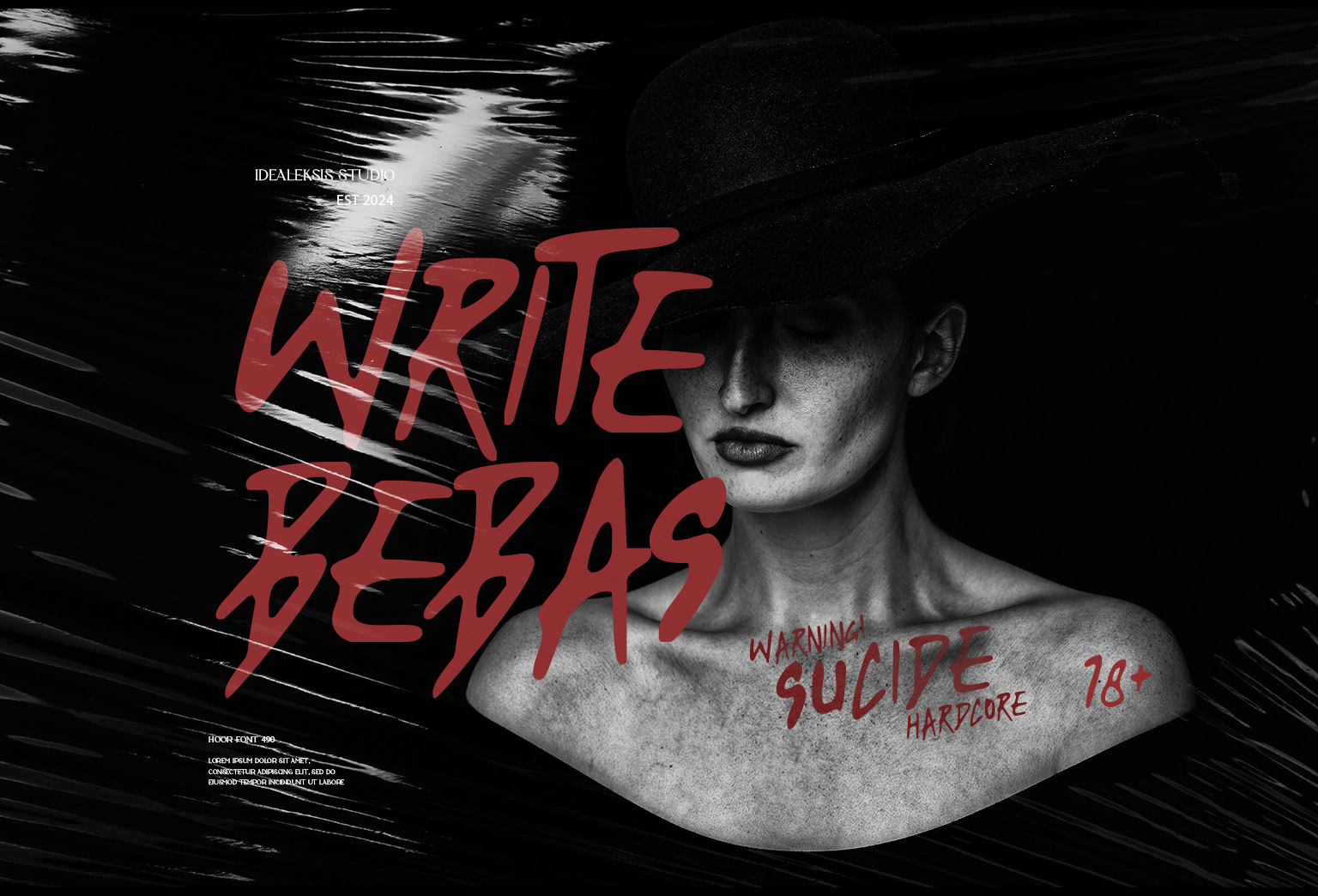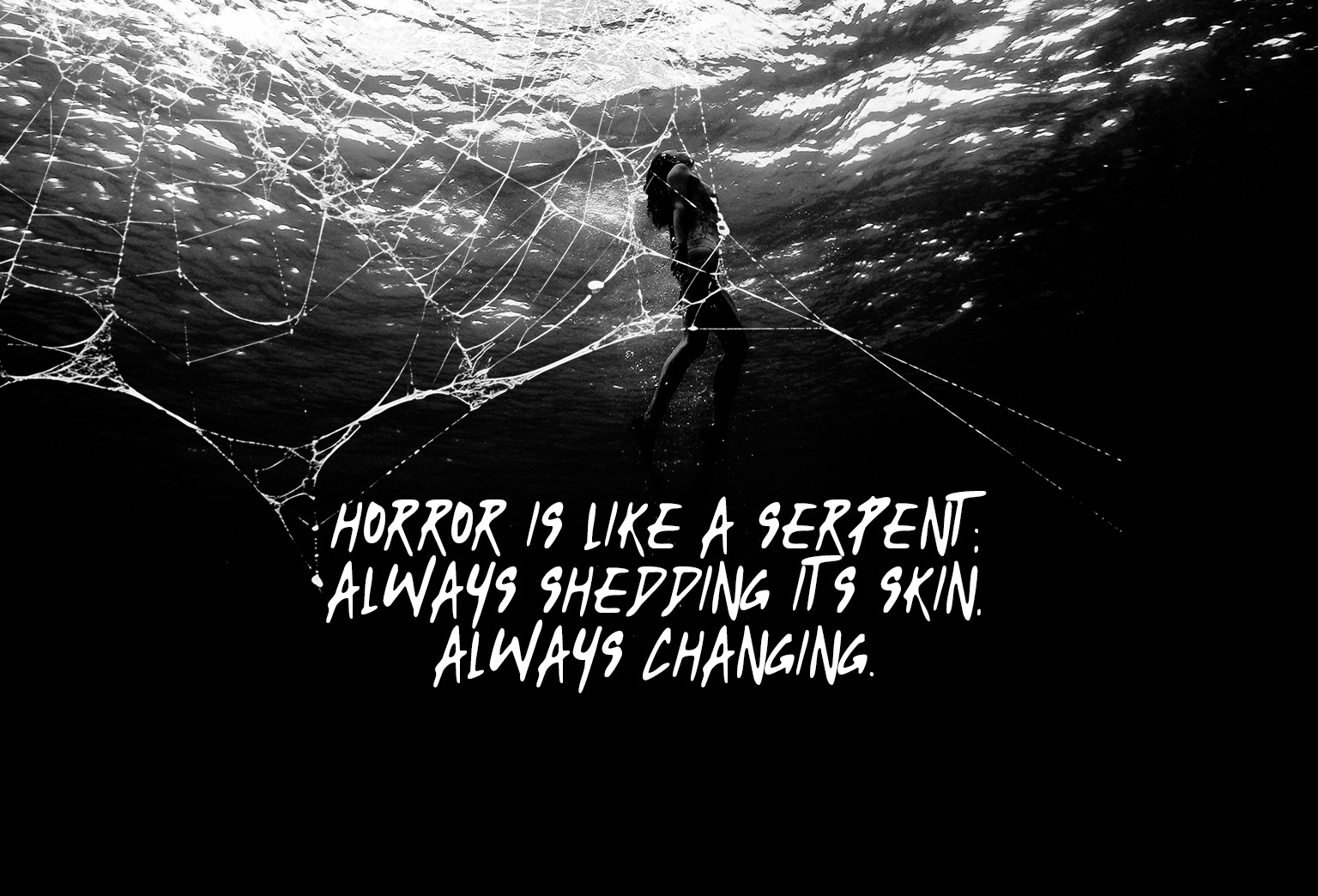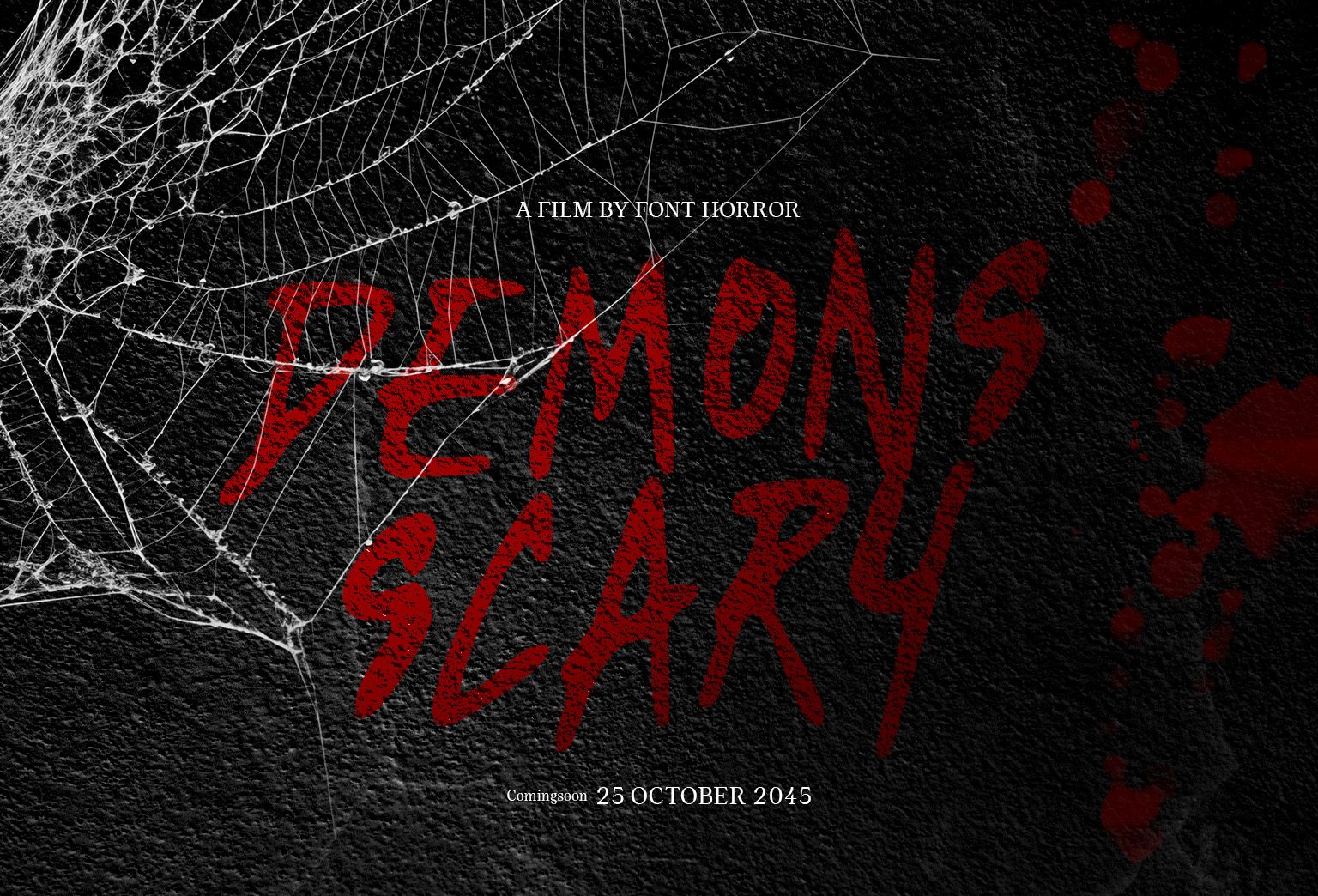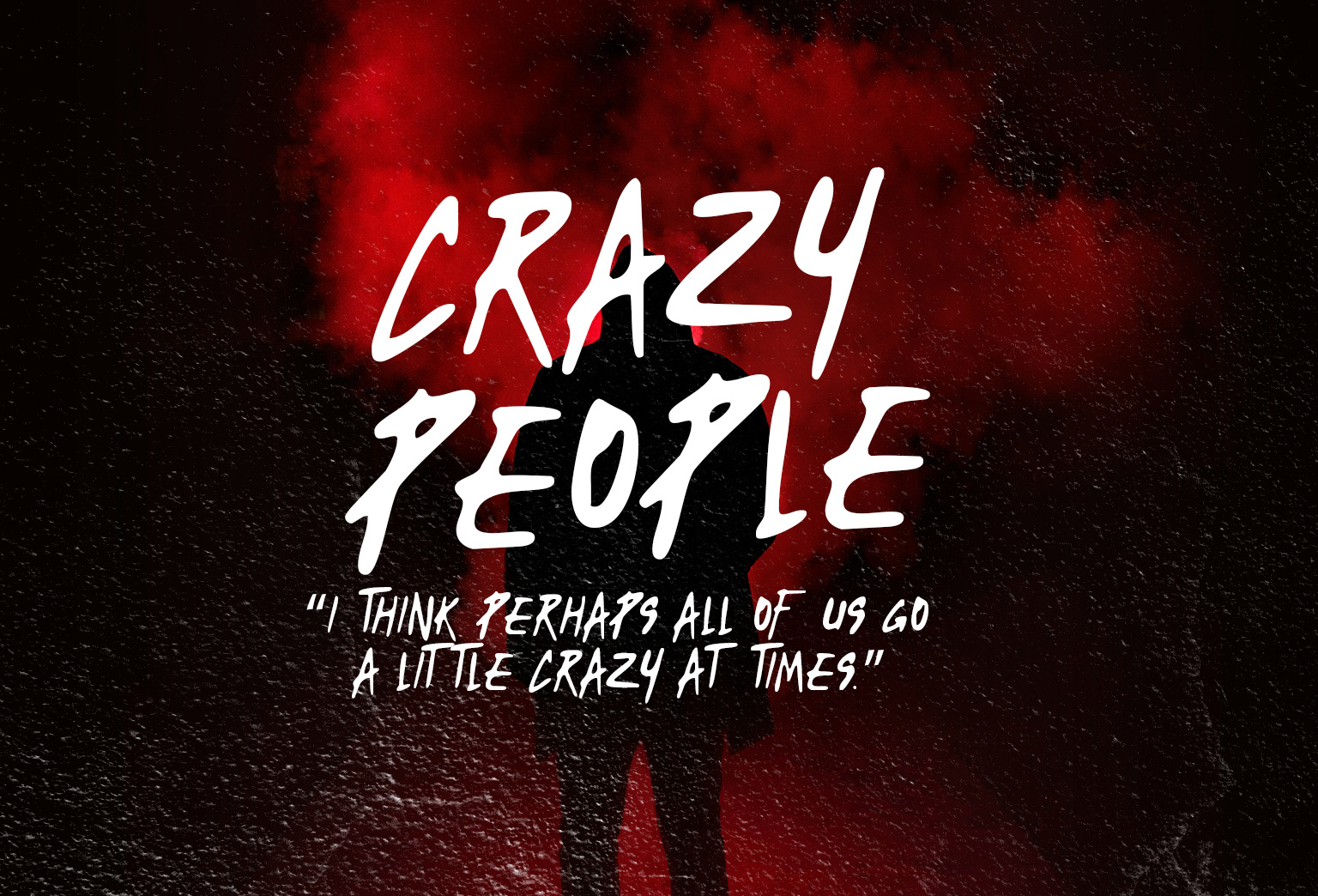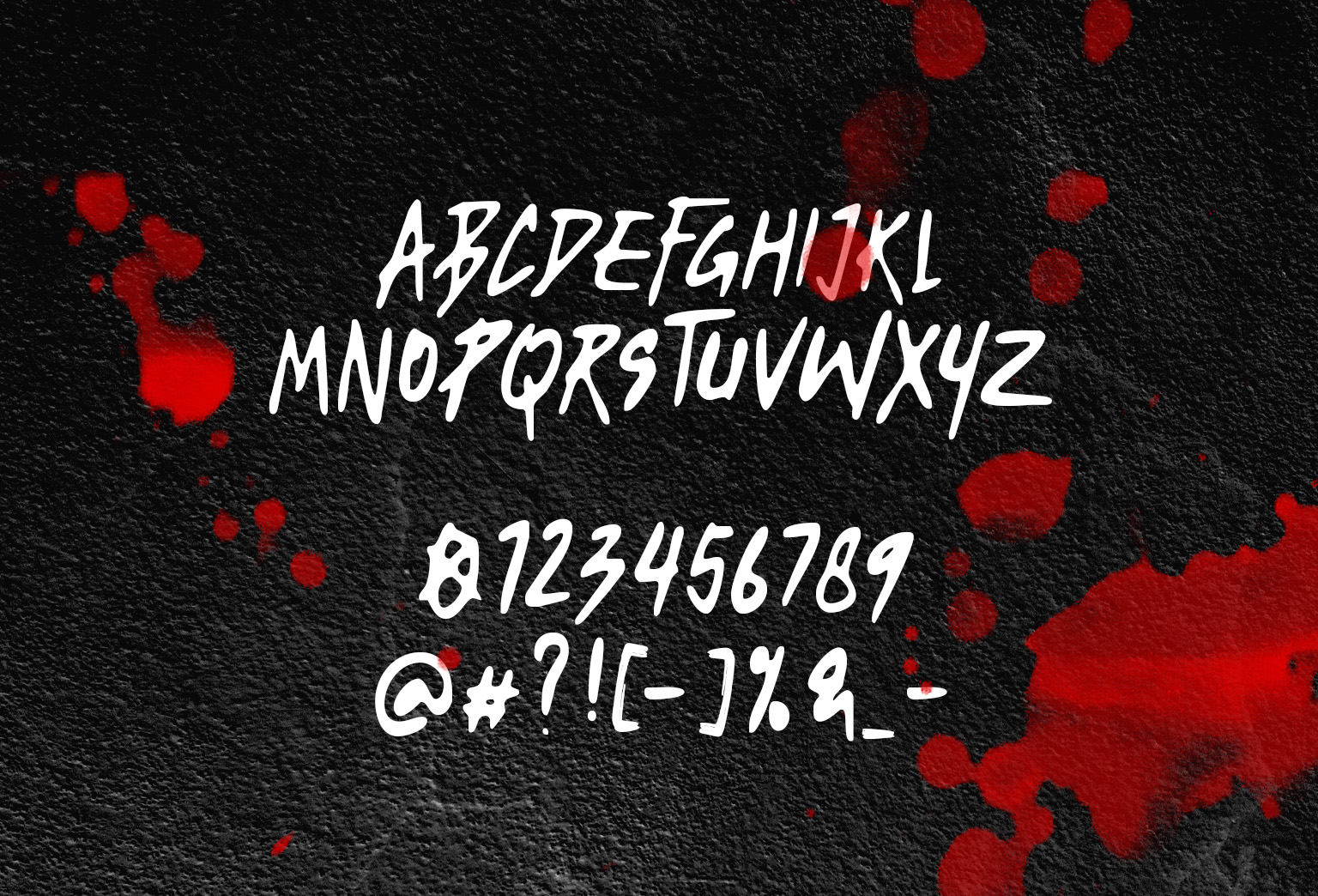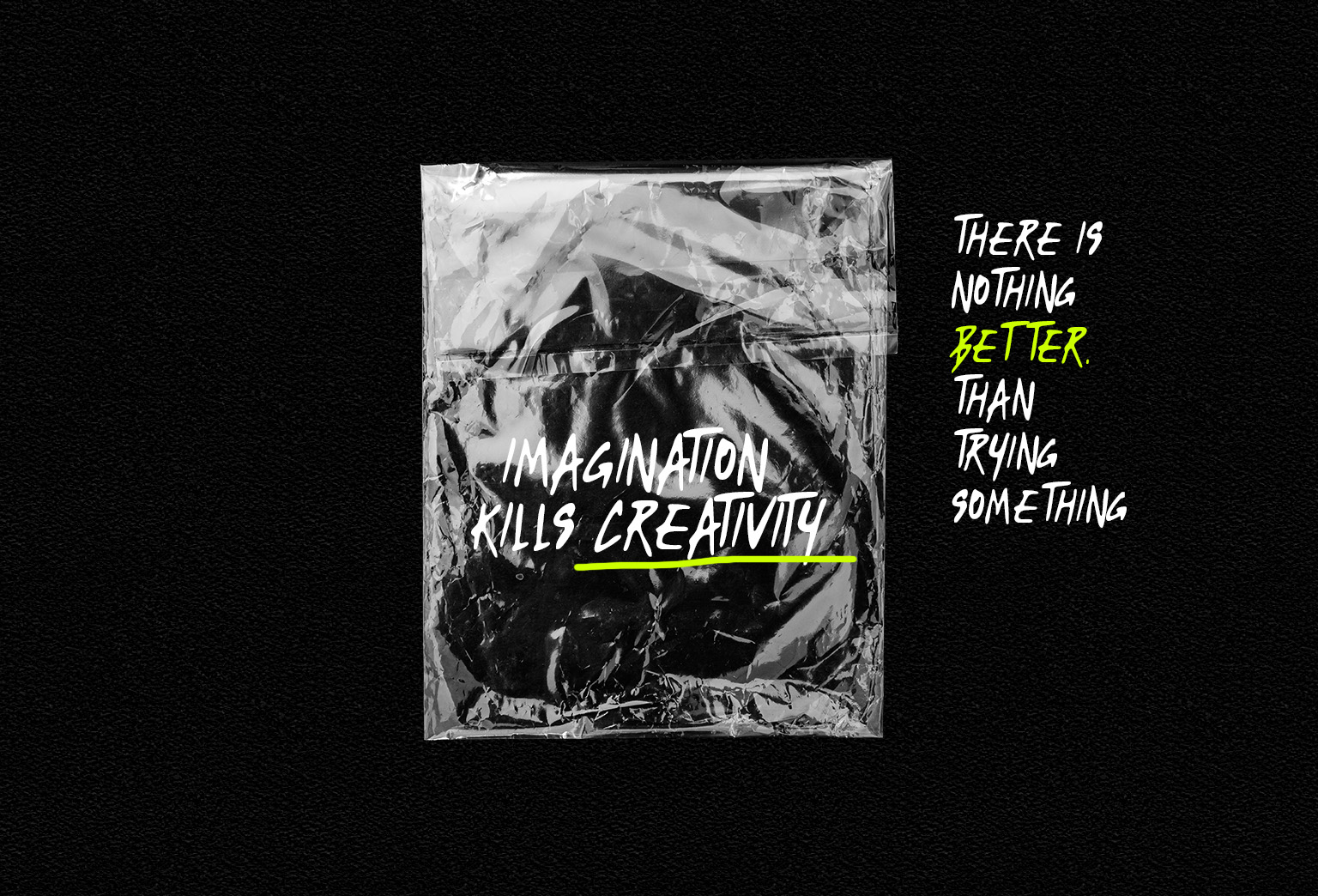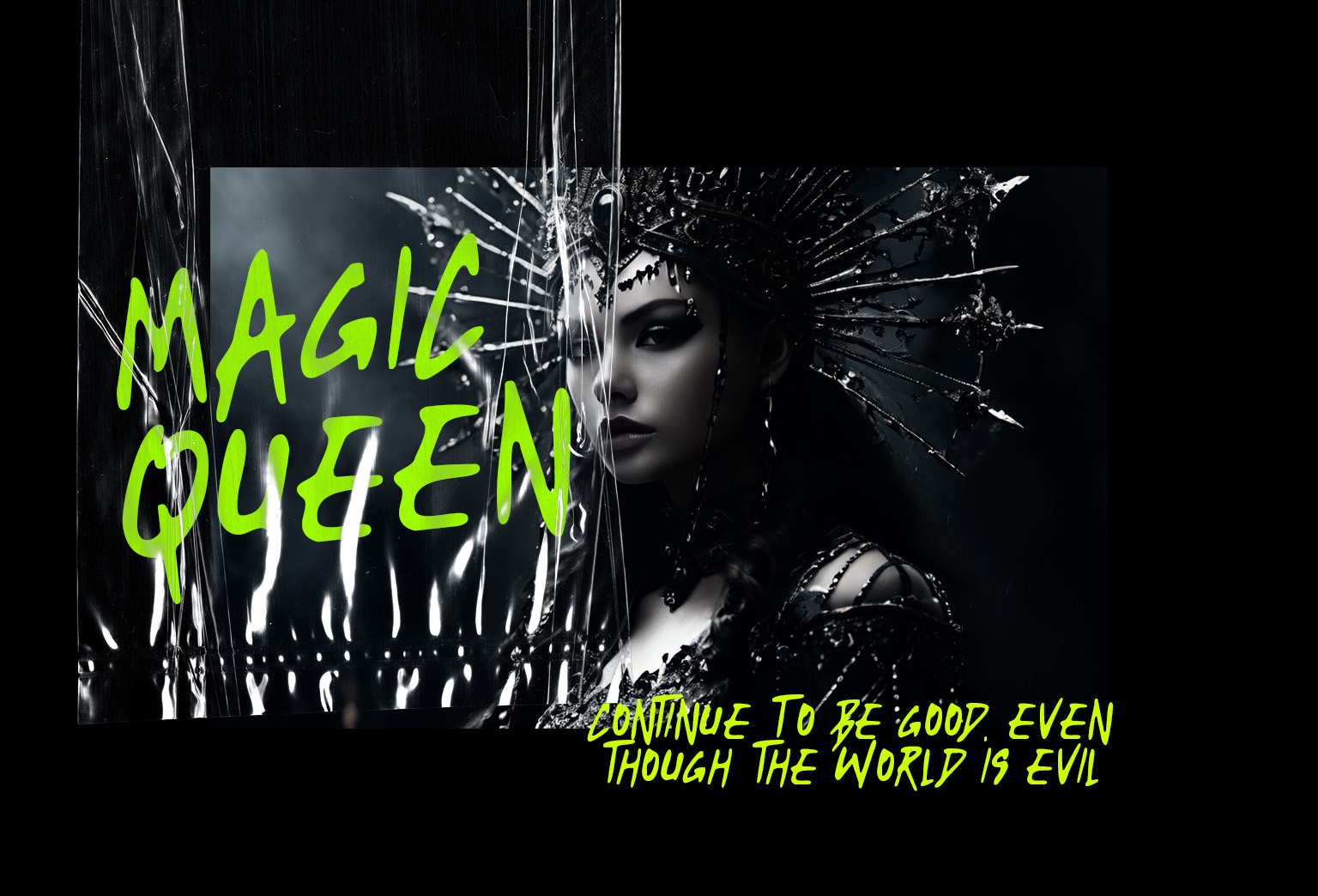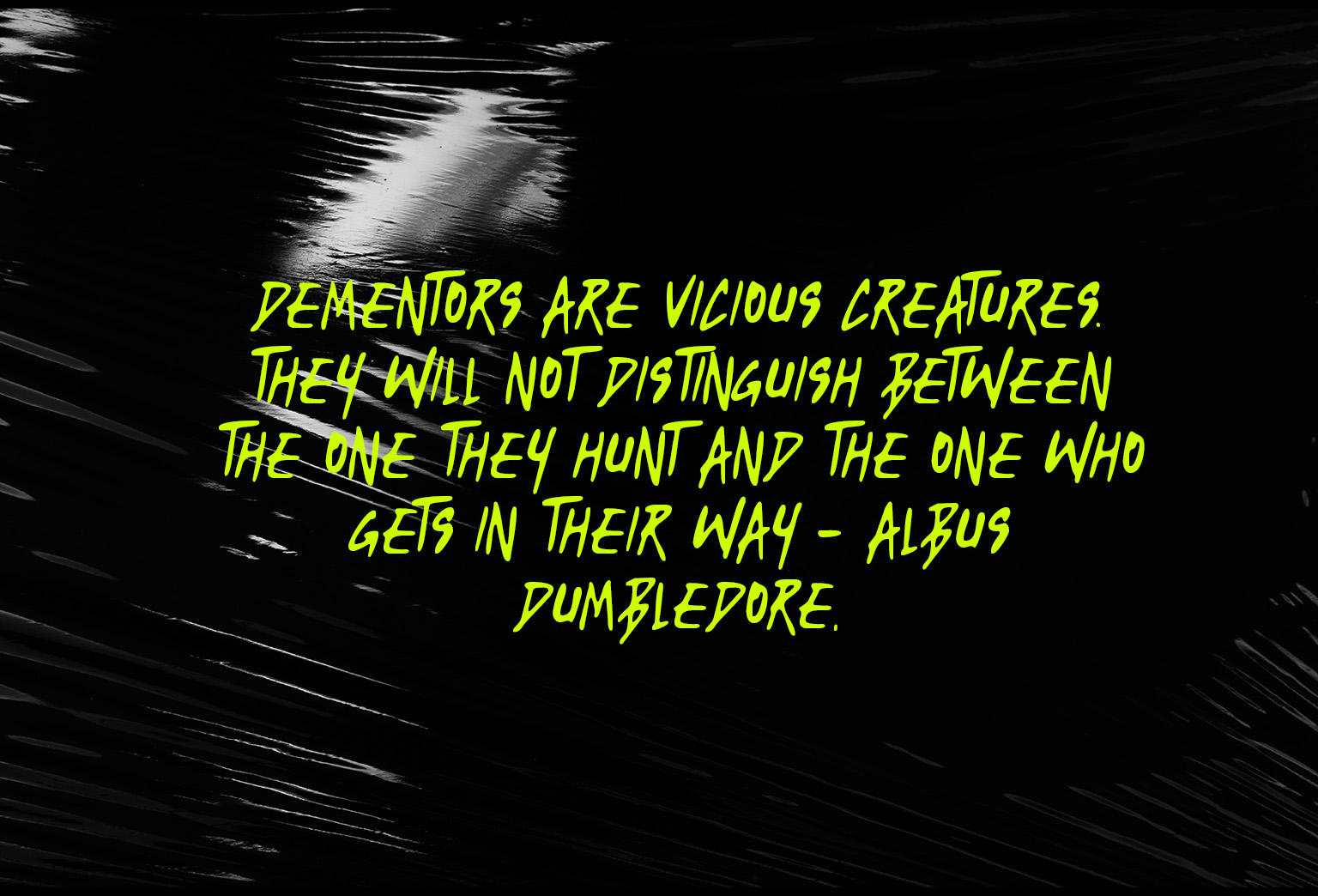
Display typeface · Latin
Write Bebas
“Write Bebas is a distinctive hand-written font that captures the essence of spontaneity and the macabre with its random, sharp brush strokes. Designed to evoke a sense of eerie unpredictability, this font is perfect for projects that require a touch of the unconventional. The sharp, brush-like quality of each character adds a raw, edgy feel, making Write Bebas ideal for horror-themed designs, expressive art pieces, and any creative work that stands out from the ordinary.”